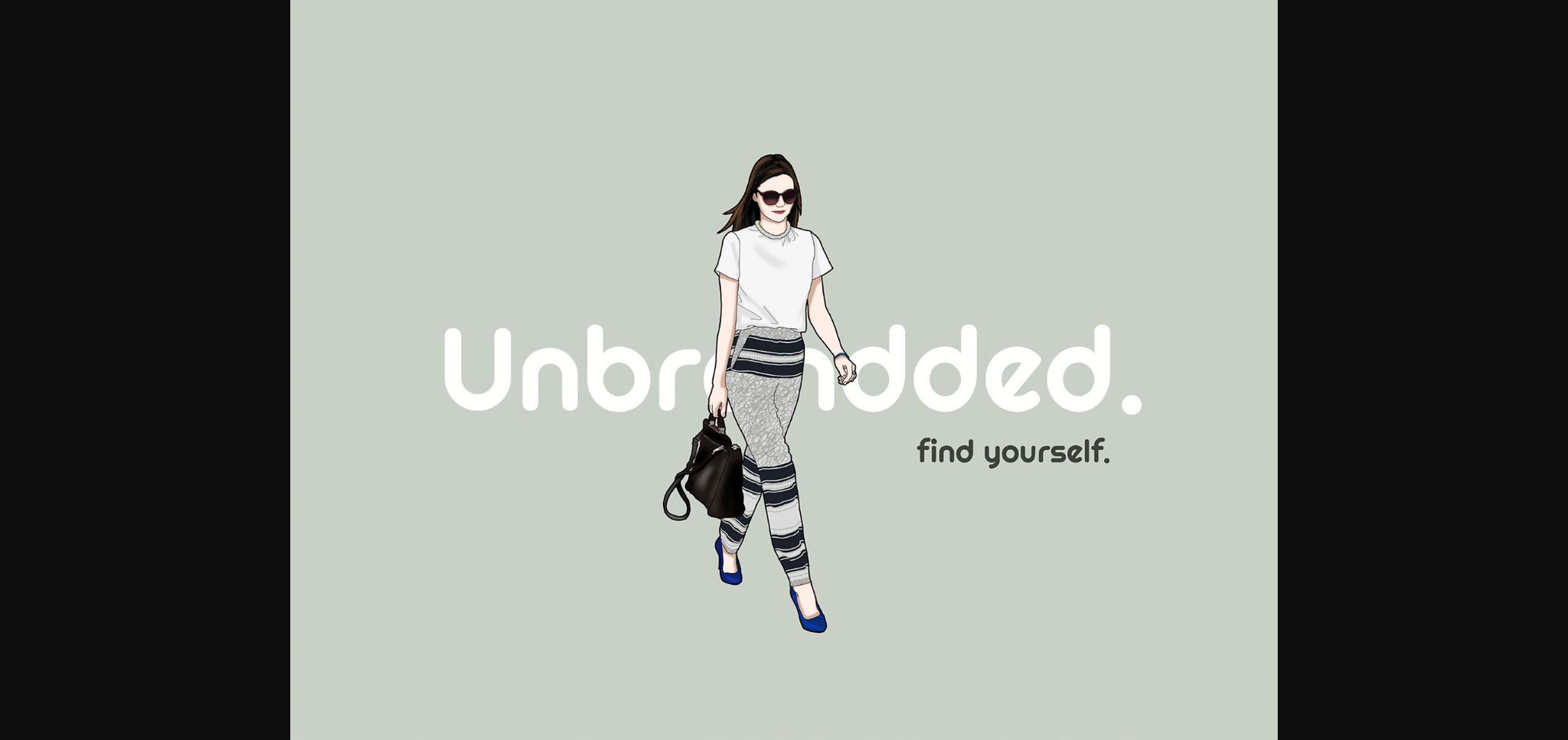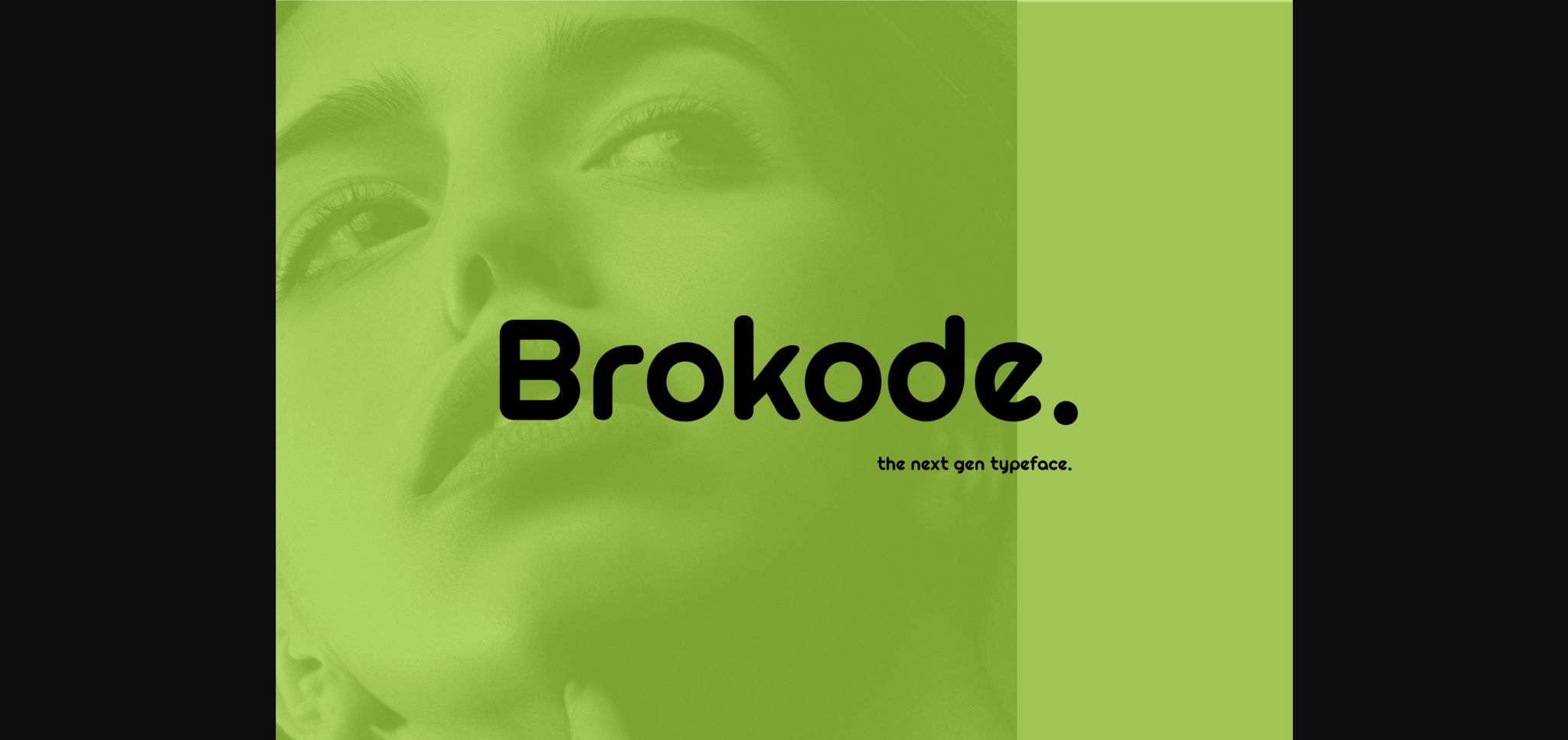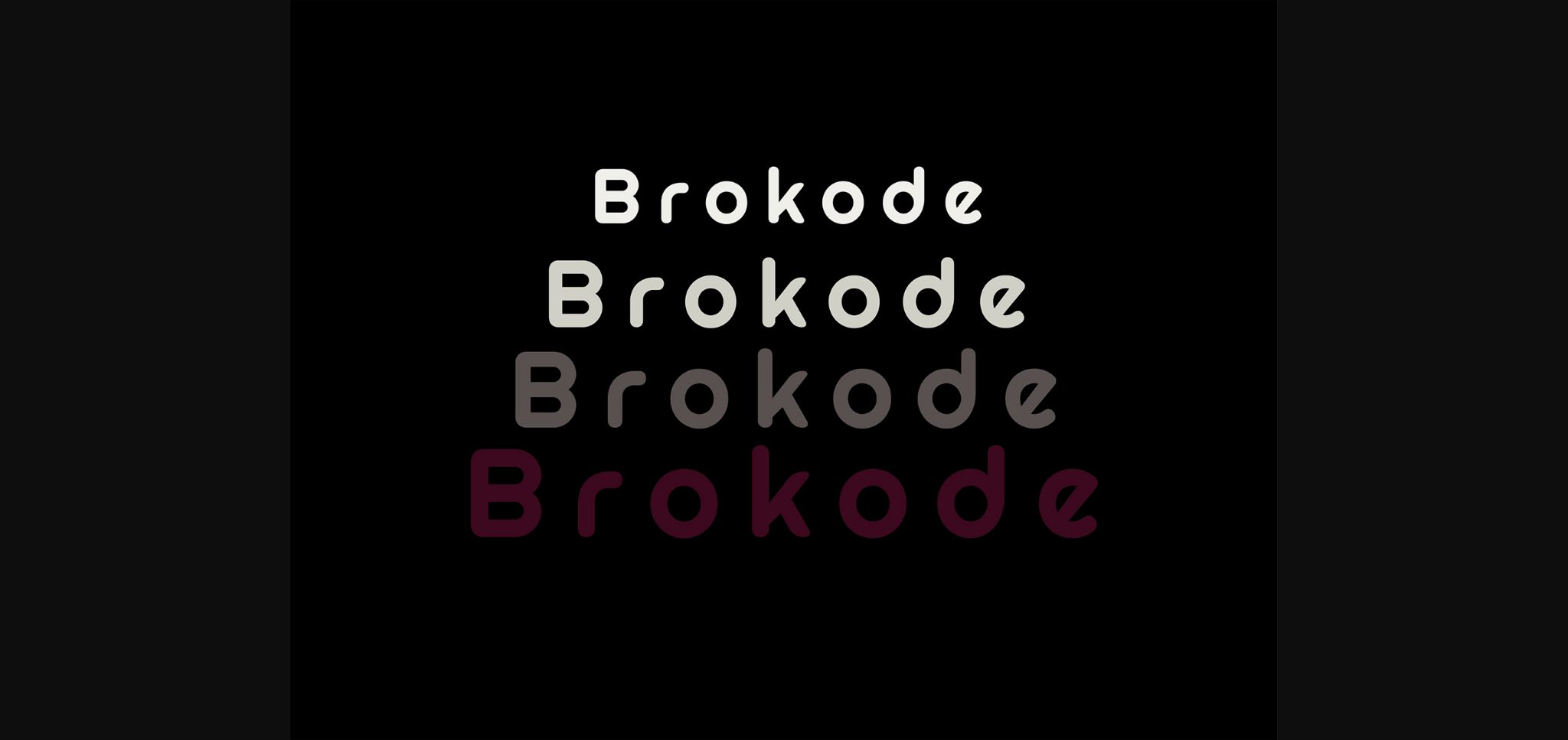
HomeSans Serif FontsBrokode Modern Typeface Font Sans Serif Fonts Brokode Modern Typeface Font FacebookXPinterestWhatsApp 1 of 5 ... Brokode Modern Typeface Font Poster 2... Brokode Modern Typeface Font Poster 3... Brokode Modern Typeface Font Poster 4... Brokode Modern Typeface Font Poster 5... About Brokode Modern Typeface Font Brokode is a modern and neat sans serif font. It can easily be matched to an incredibly large set of projects, so add it to your creative ideas and notice how it makes them stand out! DOWNLOAD NOW People also explored Savana Font Desttinate Font Stelove Font Alamanda Font Filmotype Kitten Breakfast Welcome Easter Font Child Ground Font Chocolate Font 442 0 TagsBrokode Modern Typeface Font Previous articleGoat FontNext articleWinter Princess Font LEAVE A REPLY Cancel reply Comment: Please enter your comment! Name:* Please enter your name here Email:* You have entered an incorrect email address! Please enter your email address here Website: Save my name, email, and website in this browser for the next time I comment. Personal Use Free Velasco Personal Use Free Read more about this font Farmgarden Personal Use Free Read more about this font Wallabys Junior Personal Use Free Read more about this font Dimensional Look71 Personal Use Free Read more about this font BLOG Free vs Paid Fonts: Why Investing in Premium Fonts Is Worth It Free vs Paid Fonts: Why Premium Fonts Are Worth It in 2025 The debate of free vs paid fonts continues in the design world. While... Where to Buy American Fonts Online in 2024 Best Fonts for YouTube Videos: Make Your Thumbnails Stand Out 5 Fonts That Will Dominate Design Trends in 2026